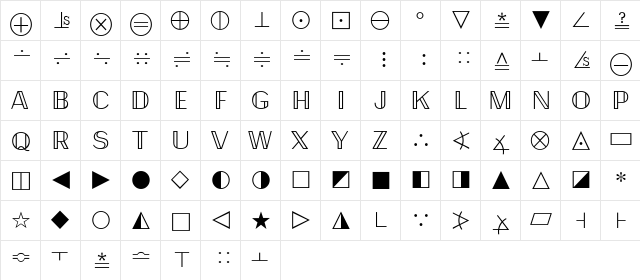
MathematicalPi 6 Regular
Design Context for MathematicalPi 6 Typeface
MathematicalPi 6 takes a measured approach to typography — its balanced proportions and neutral character make it a reliable workhorse for both digital and print work.